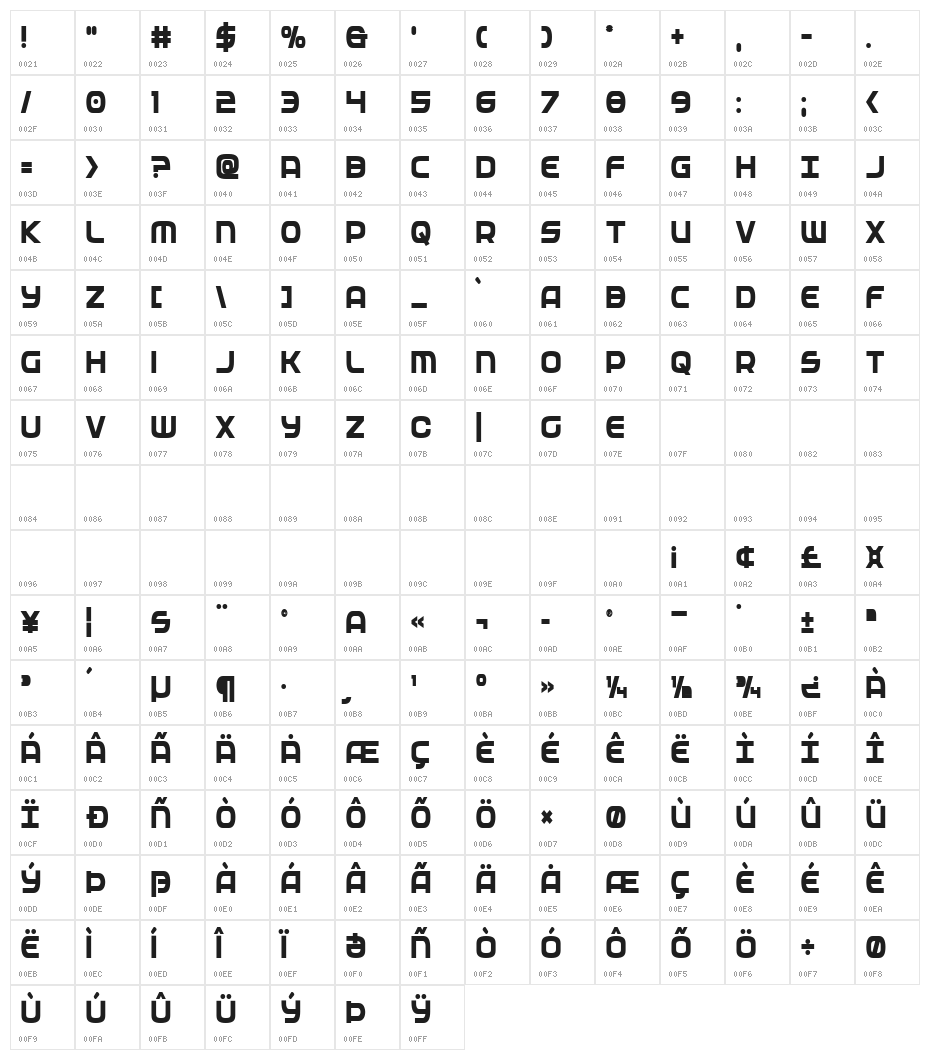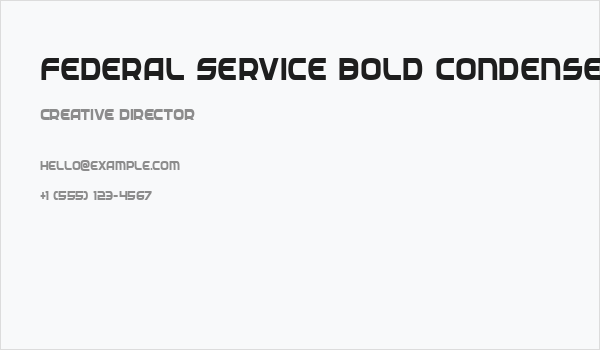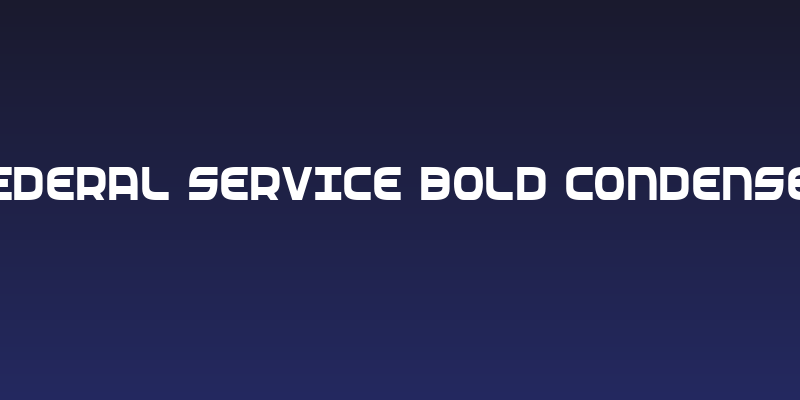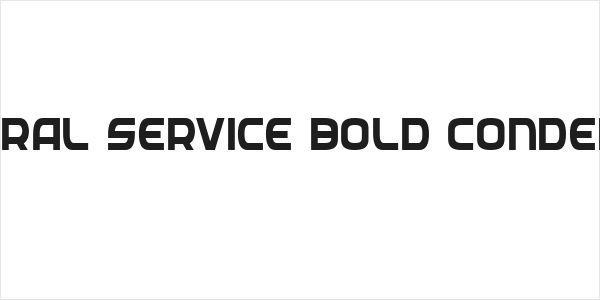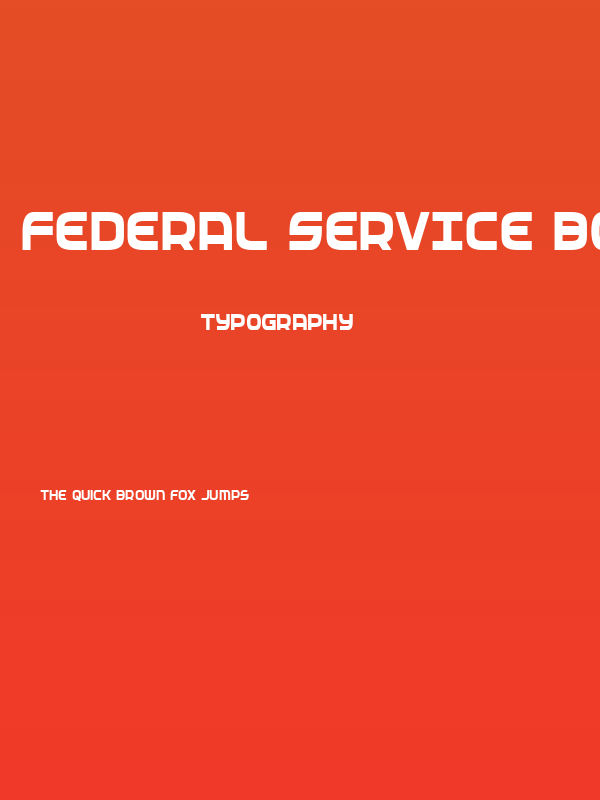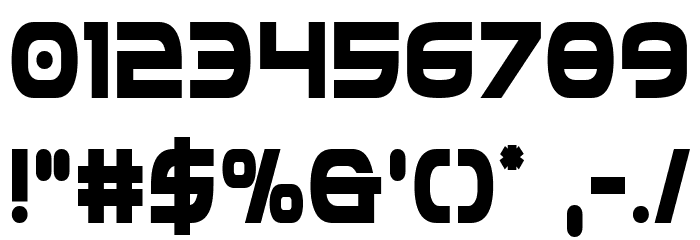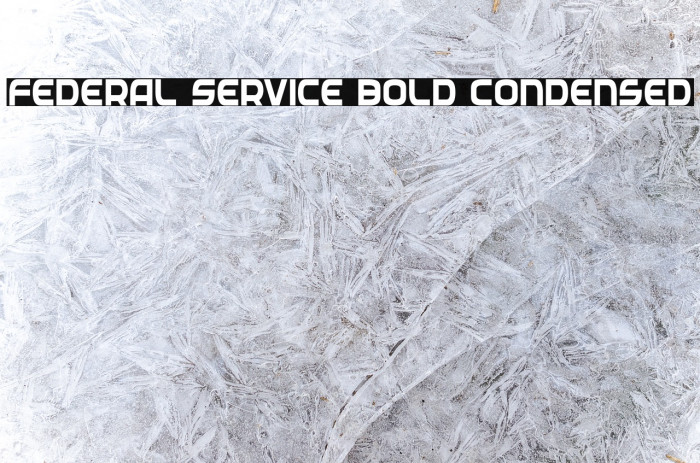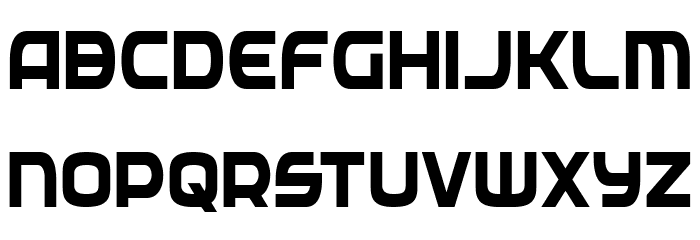
Federal Service Bold Condensed Font
Federal Service Bold Condensed Description
This font features a bold and condensed style, characterized by its strong geometric shapes and uniform stroke width. The uppercase letters are particularly striking, with a modern and industrial feel. The lowercase letters maintain the same boldness, ensuring consistency across the typeface. Numbers are clear and easy to read, making them suitable for various applications. Special characters are designed with the same geometric precision, adding to the font's cohesive appearance. The overall design is clean and impactful, making it ideal for attention-grabbing headlines or branding materials.
| Proposed Projects | Ideal for branding, advertising, posters, and headlines where a strong, modern impact is needed. |